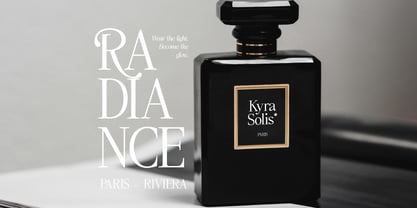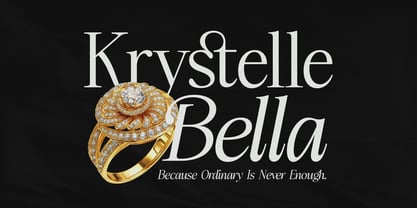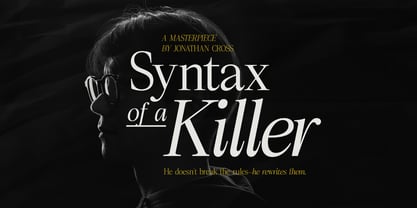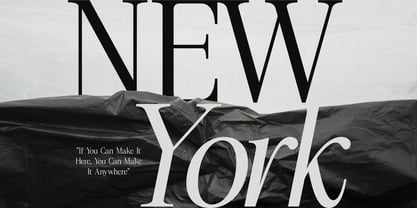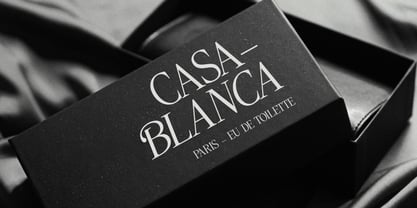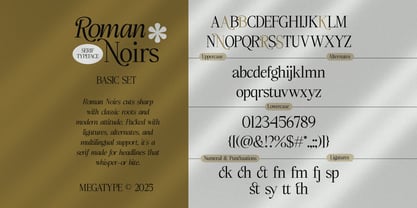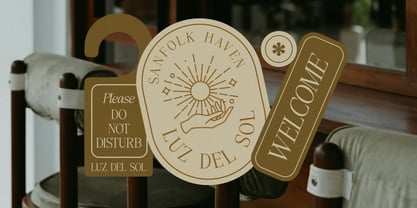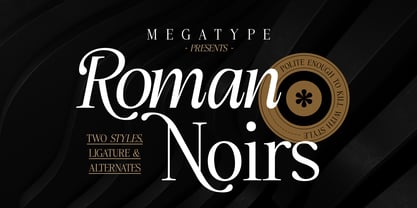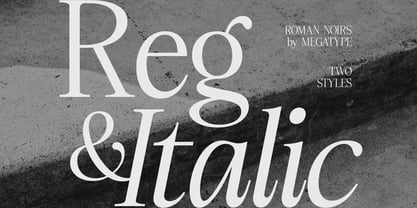
Roman Noirs
by Mega Type
The Roman Noirs Font Family was designed by M Akmal and published by Mega Type. Roman Noirs contains 2 styles and family package options. More about this family
Roman Noirs is a refined serif font designed with a compelling blend of vintage elegance and contemporary flair. Roman Noirs available in 2 styles Regular and Italic. Roman Noirs boasts a high-contrast serif design, emphasizing sharp transitions and fluid curves. It channels the sophistication of traditional Roman serif fonts but injects a modern attitude through expressive alternates and smart ligatures.
Roman Noirs cuts sharp with classic roots and modern attitude. Packed with ligatures, alternates, and multilingual support, it’s a serif made for headlines that whisper—or bite.
This typeface is tailored for striking headlines that can subtly whisper or boldly bite. Roman Noirs best for editorial design, fashion branding, book covers, posters, packaging, logos and identity systems and many more.
Roman Noirs is not just a font—it’s a statement piece for designers who want their type to speak volumes with a touch of drama and timeless class in their design projects.